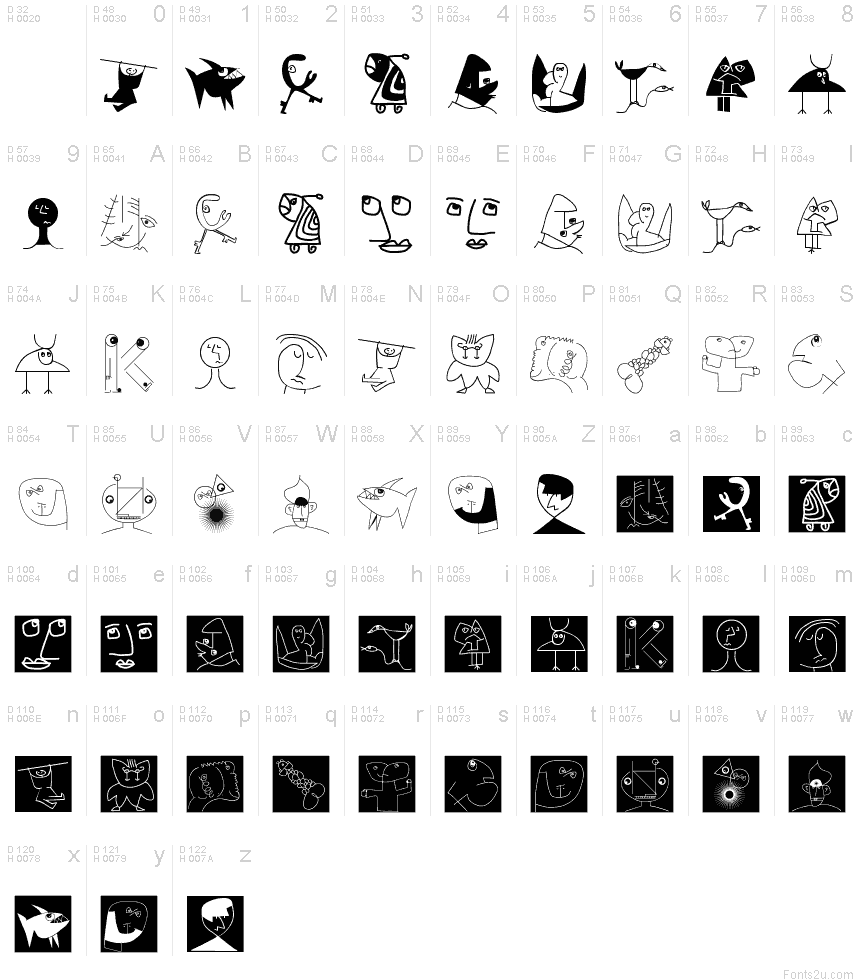
MouseBits by M. Klein is a free hand-drawn portrait dingbat font built from spare, uneven lines. Its faces and creature-like figures have simplified features, offbeat proportions, and the direct quality of quick notebook sketches.
The oddball cast suits themes of childhood, homemade storytelling, and eccentric humor. It can supply illustrated emblems for children's publishing, indie music merchandise, or playful event posters. Because eyes, noses, ears, and outlines carry the expression, each symbol can function as both a pictorial mark and part of a larger cartoon scene.